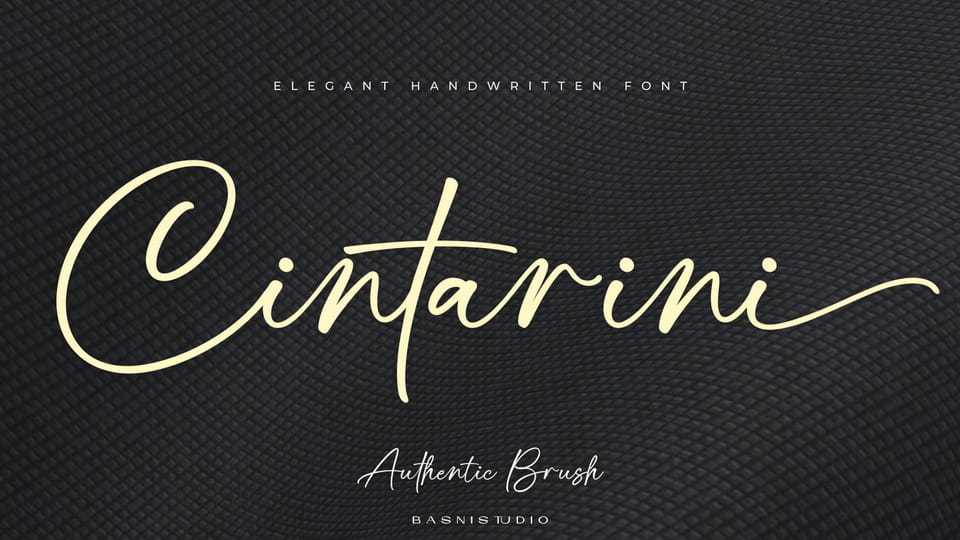
Download Cintarini font, a stylish handwritten script crafted with authentic brush for natural and casual touch. Perfect for everything from branding and social media to invitations and packaging.